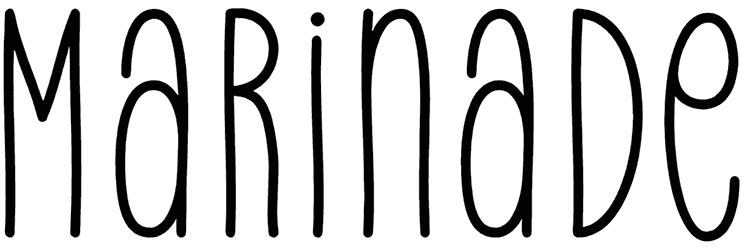
Marinade Font
Marinade is the recommendation of many graphic design professionals for those looking for a modern look with a mixture of both lowercase and uppercase letters without numbers. This doodle font has narrow lines without the usual twists, which has brought good readability to it.
Therefore, it creates clear visual designs for you that can be read at any size. This script font creates a good interaction with the user, and its childish feel is very pleasant on packages and letters.